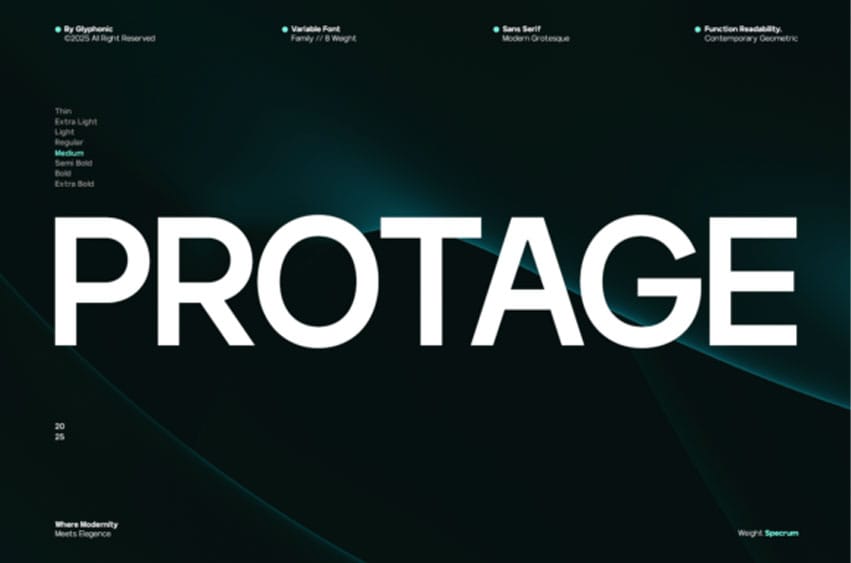
Protage Font
Protage Font is a contemporary sans serif typeface designed to deliver exceptional clarity, strength, and modern versatility. Built with clean geometry and confident strokes, it offers a powerful yet refined voice that performs seamlessly across both digital and print media. Created to express simplicity without losing character, Protage is ideal for branding, editorial layouts, tech-driven projects, and striking visual identities.
With balanced proportions and precise detailing, Protage stands out as a highly adaptable yet distinctive typeface. Whether you’re crafting sleek user interfaces, bold headlines, or minimalist posters, this font brings clarity, modernity, and elegant impact to your typography.nbsp;